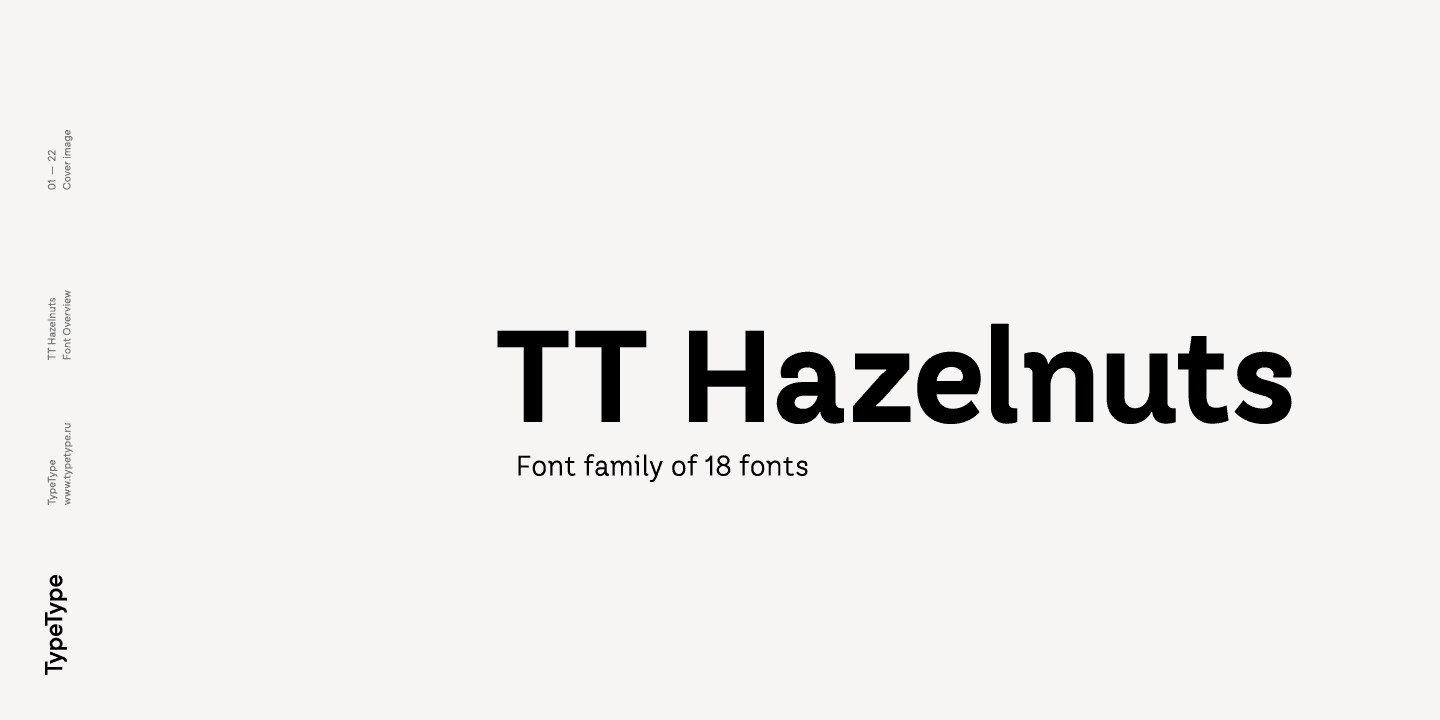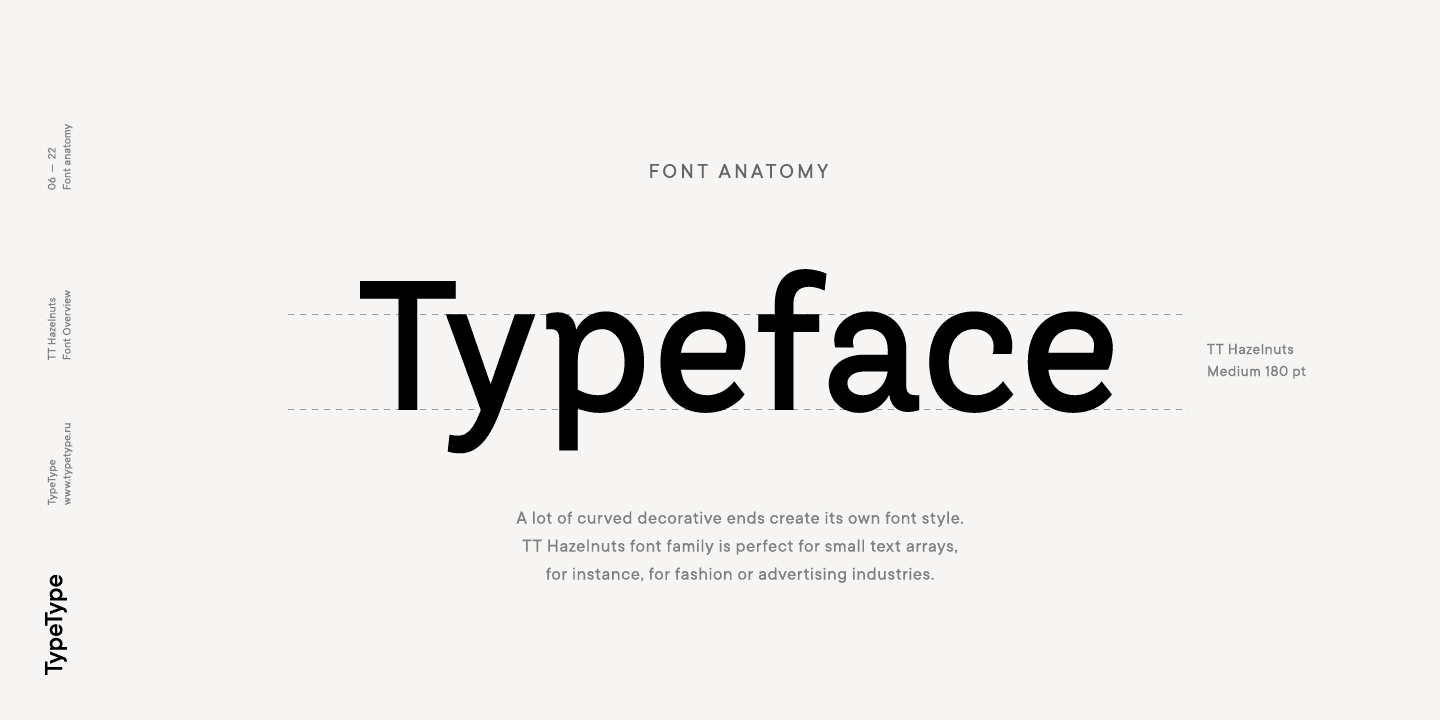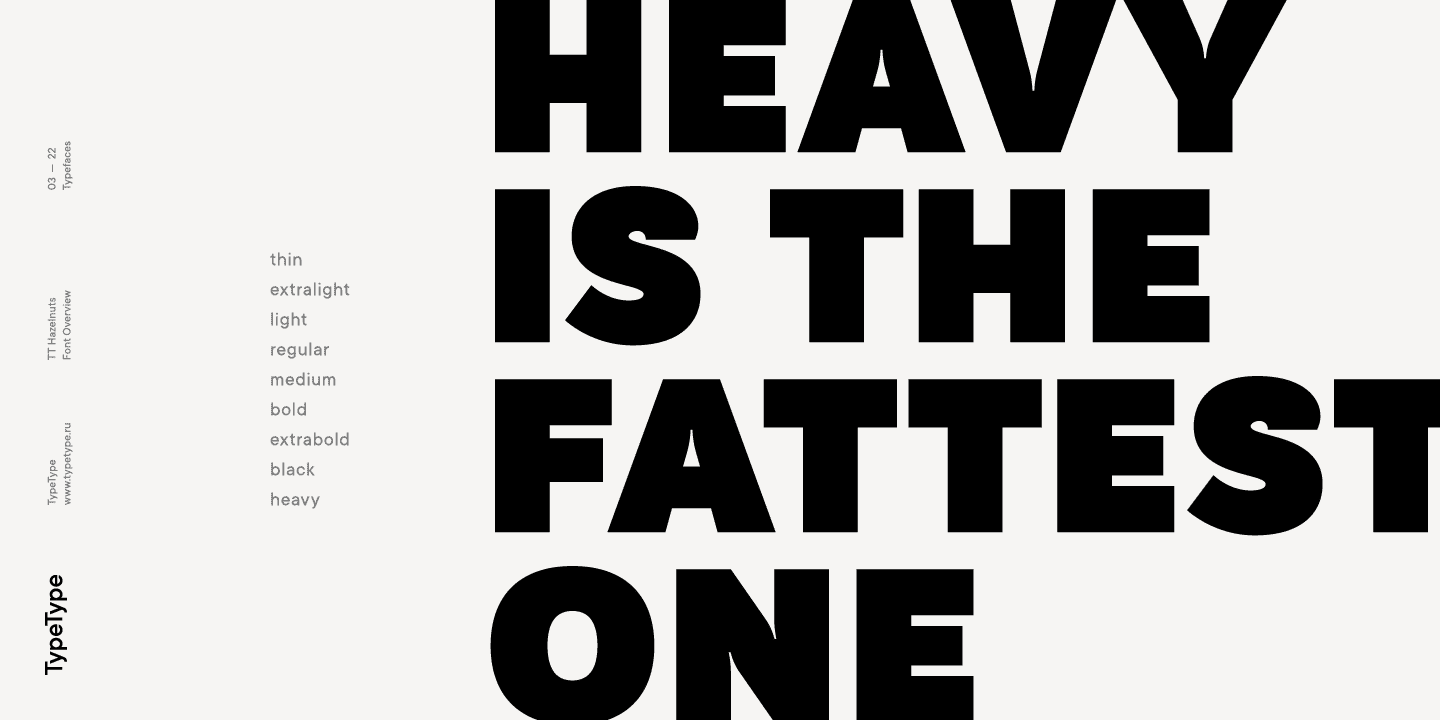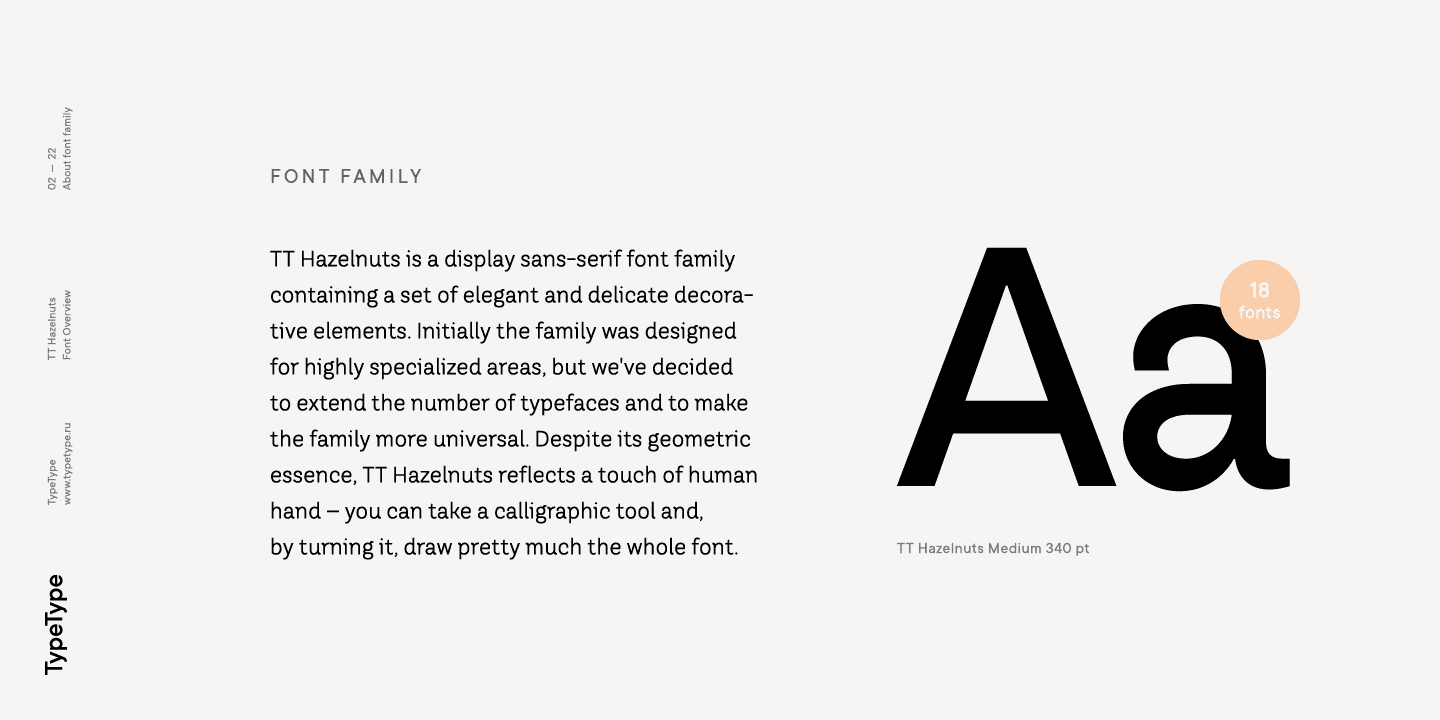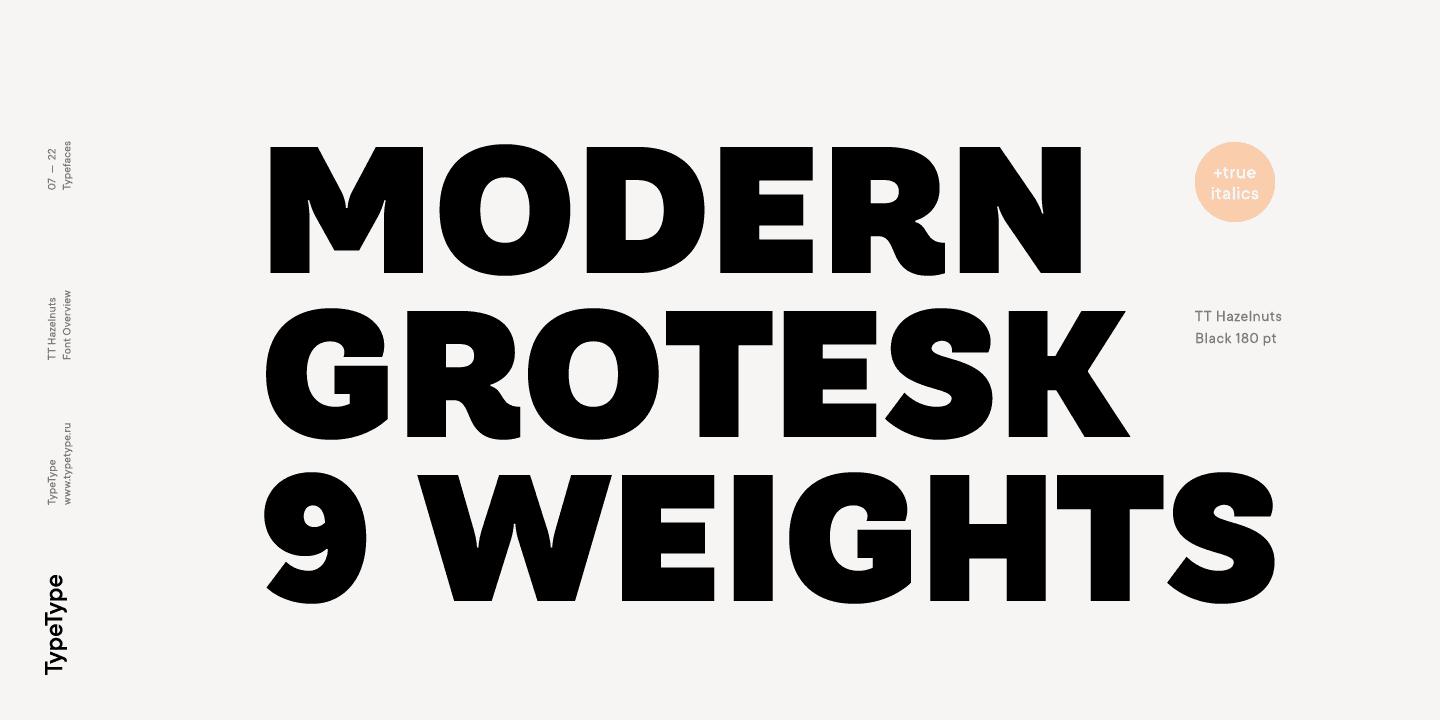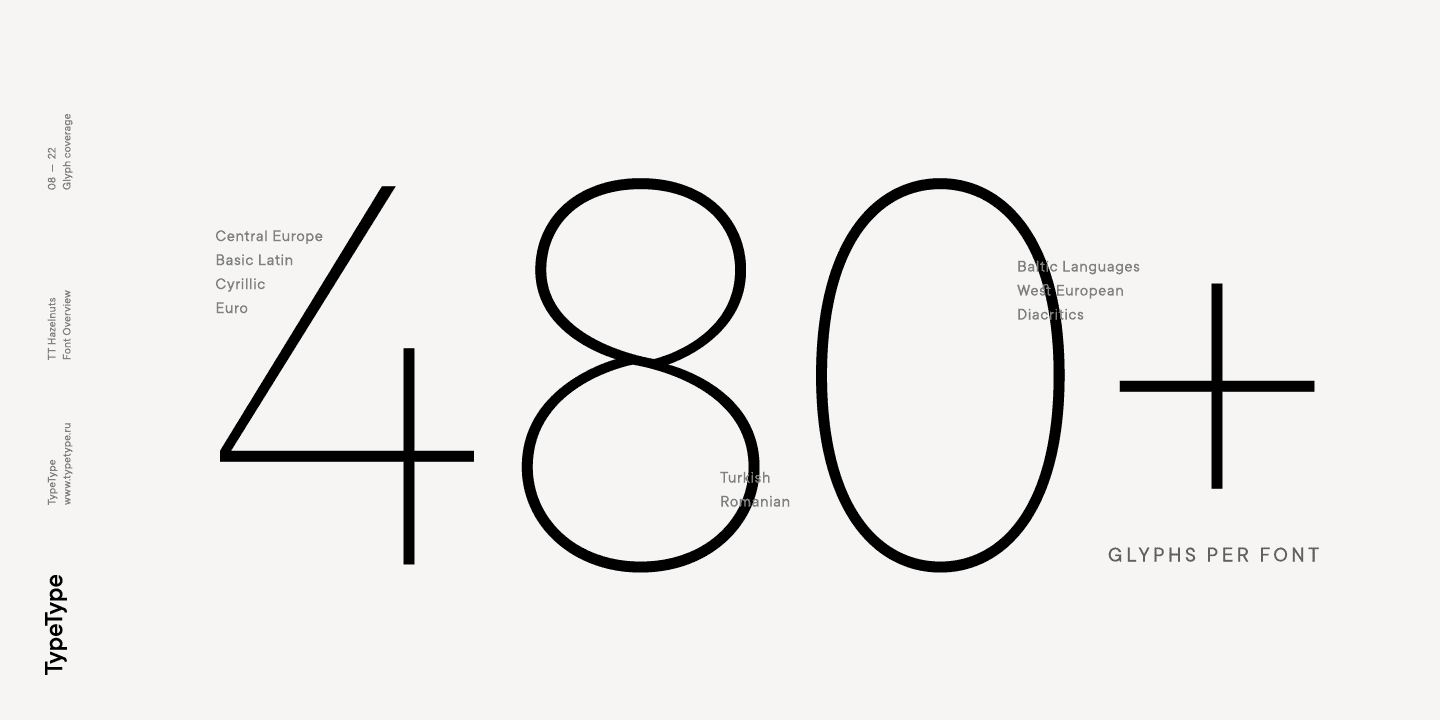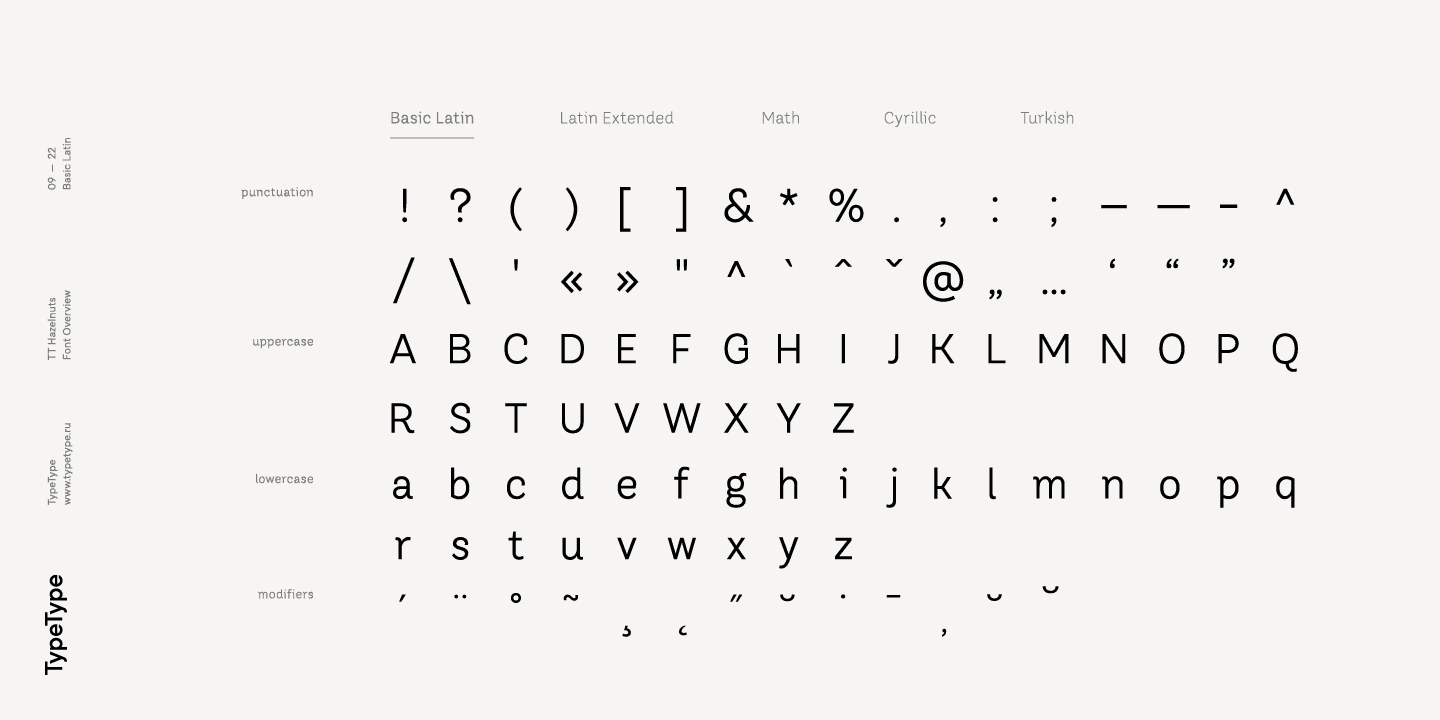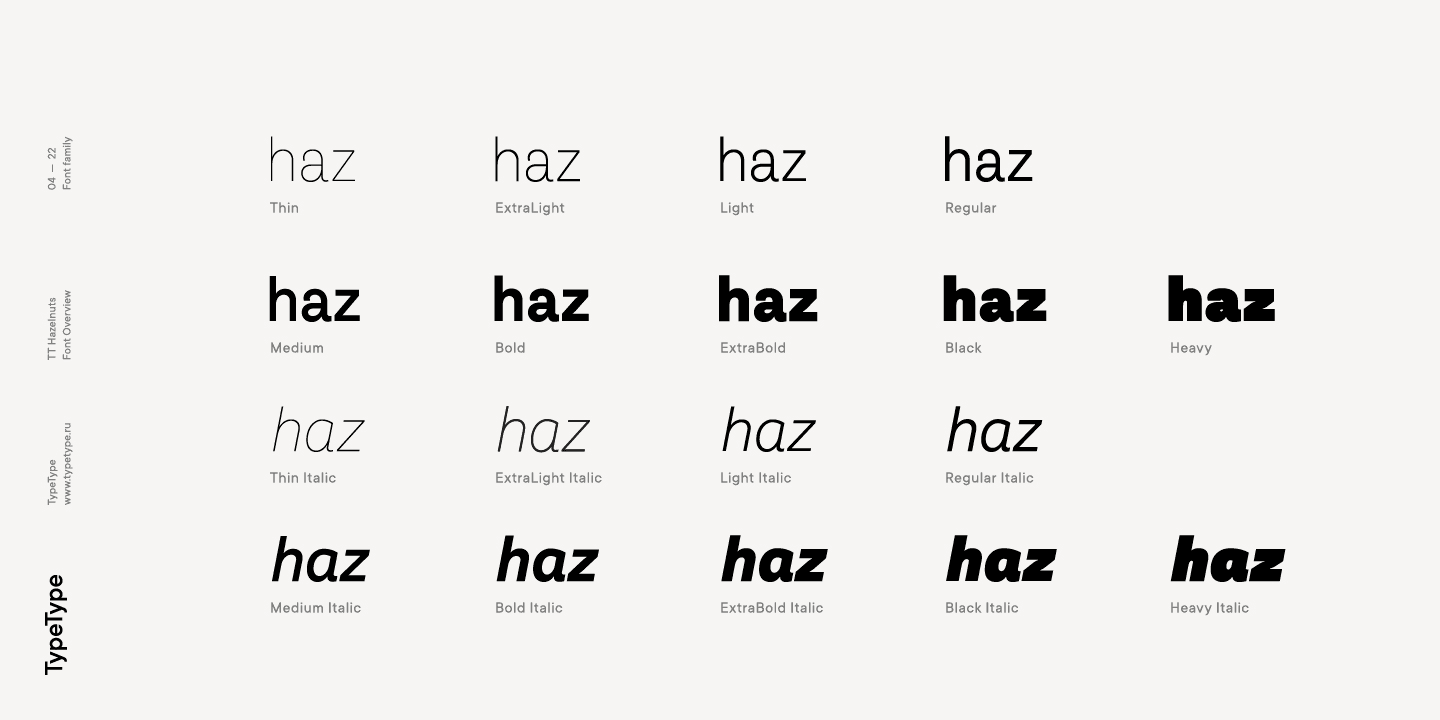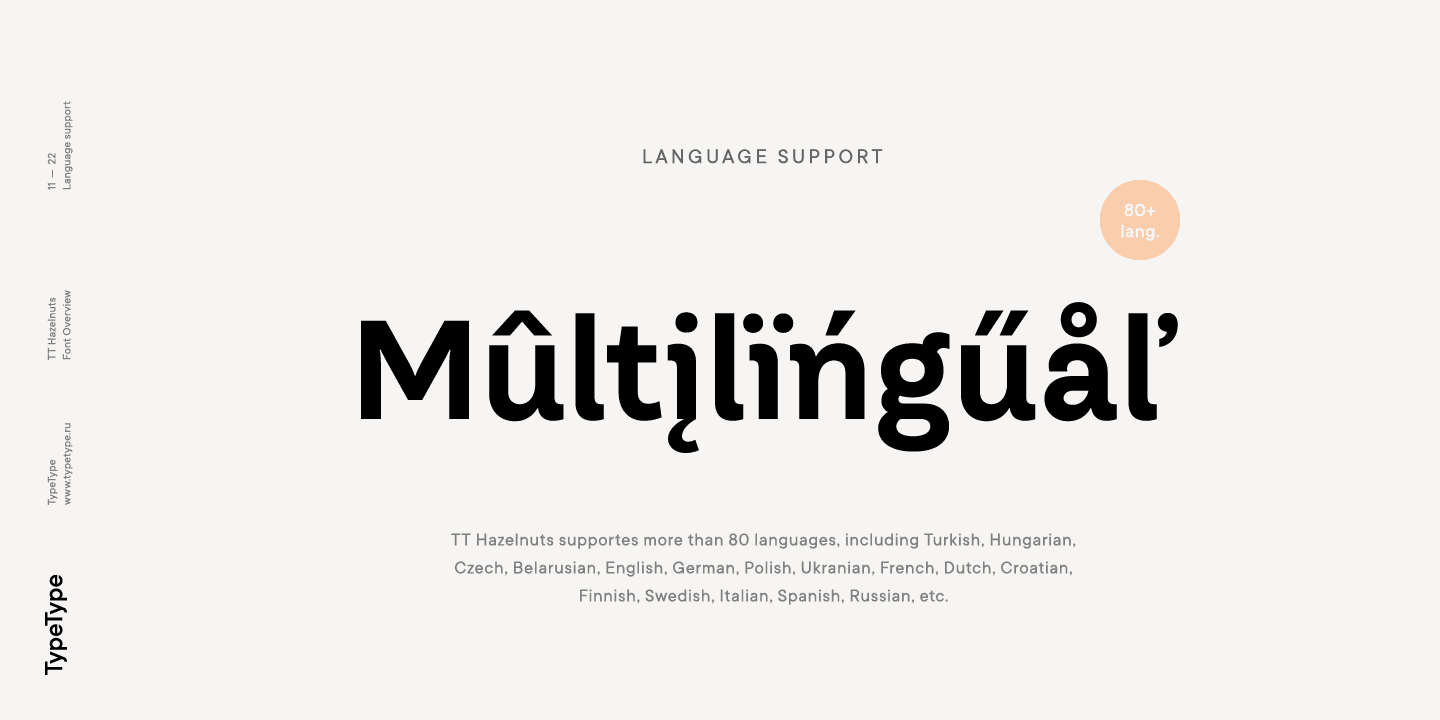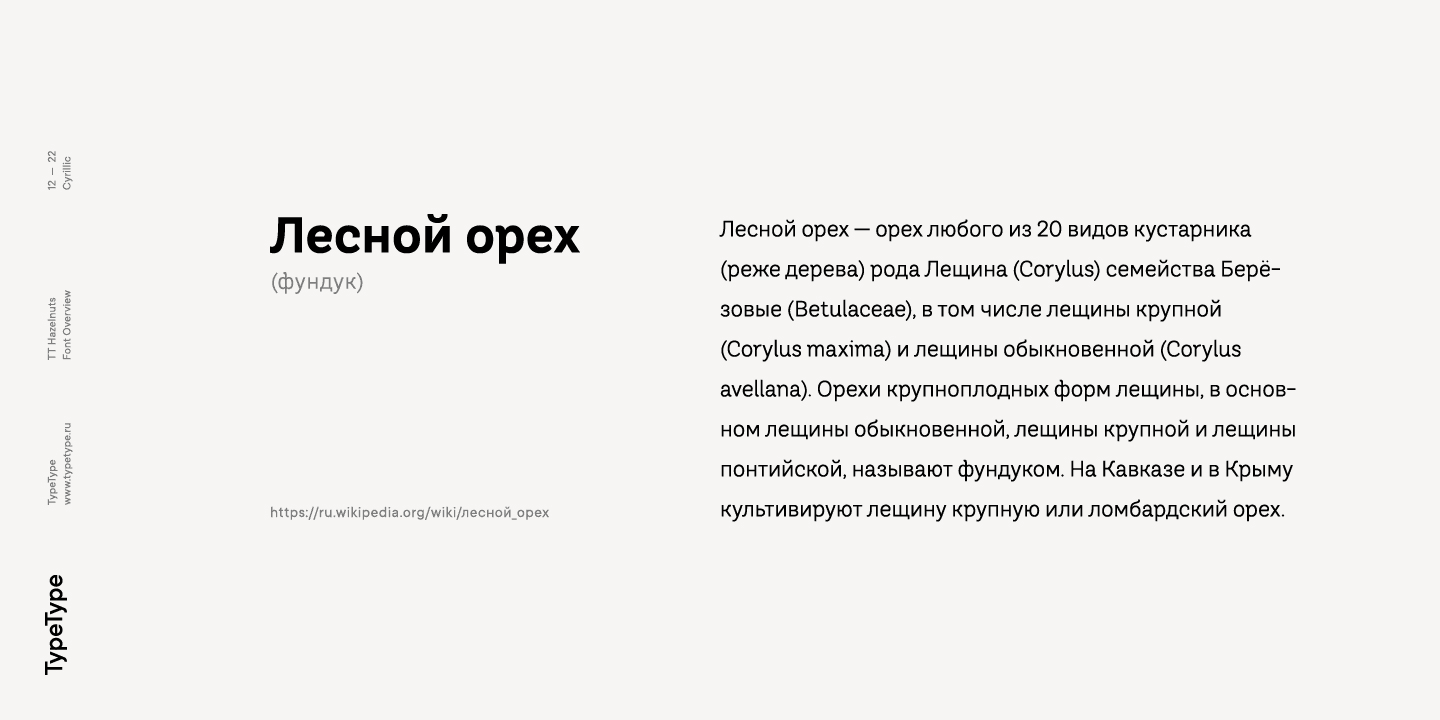
TT Hazelnuts Family (18 fonts)
TT Hazelnuts fontfamily is perfect for small text arrays, for instance, for fashion or advertising industries, and will also fit perfectly into layout of longer and more complex typographic systems thanks to a large variety of font weights (Thin, ExtraLight, Light, Regular, Medium, Bold, ExtraBold, Black, Heavy) and its real italics. It has already become a good tradition to include broad support of OT features into our new fonts. TT Hazelnuts is not an exception, it uses a large number of useful features: ordn, sinf, sups, numr, dnom, tnum, onum, frac, case.
Baltic, Central/Eastern Europe, Cyrillic, Romanian, Turkish, Western Europe
Old-style Digits, Contextual Alternates, Fractions, Superscript, Subscript